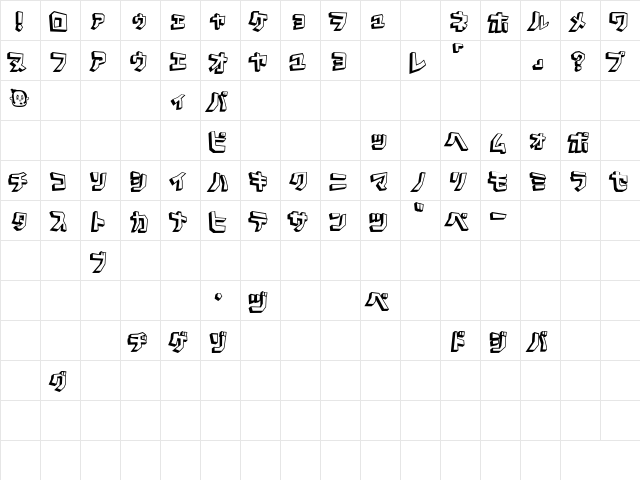
Pavement KanaLogger
Design Context for Pavement Typeface
Pavement is a composed and adaptable typeface that performs quietly and consistently across a wide range of design contexts.